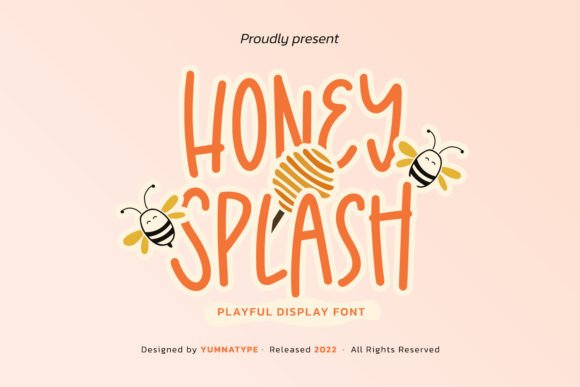
Looking for the perfect font to elevate your next English essay? Look no further than Honey Splash Font, the latest addition to Yumna_Type's display font family.
This cheerful and cute handwritten font is the perfect choice for those looking to add a touch of personality to their designs. Whether you're working on a school project, creating marketing materials for your business, or designing a website, Honey Splash will help your words jump off the page.
With its bold and playful curves, this font is sure to capture the attention of your audience and leave a lasting impression. Plus, its easy-to-read design makes it a great choice for everything from headlines to body text.